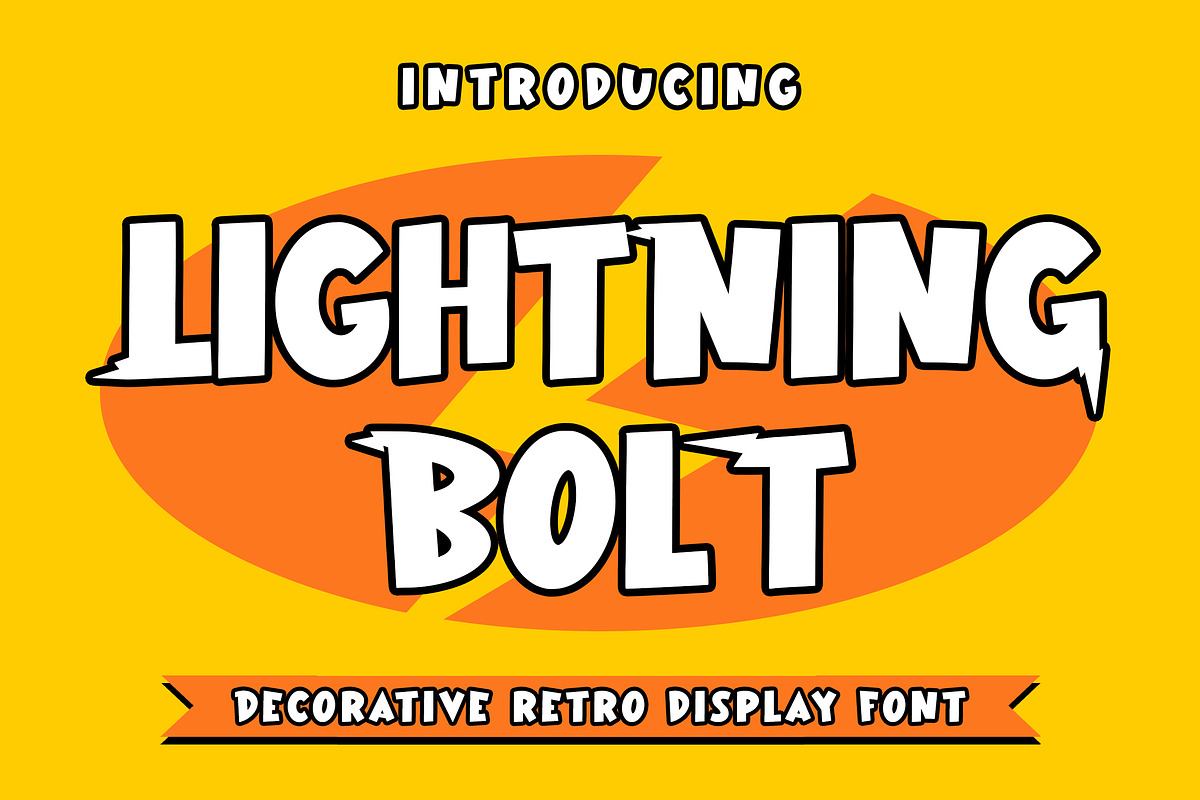
The Lightning Bolt - Decorative Retro Font Free Download is a bold, energetic typeface with a retro aesthetic, perfect for creating vintage-inspired designs. Ideal for logos, posters, event invitations, social media graphics, and more, this font adds a striking, playful touch to any project with its unique, decorative style. Please note, for commercial use, a license must be purchased. You can download it for free for testing purposes.
With its bold curves, sharp angles, and vintage feel, the Lightning Bolt - Decorative Retro Font Free Download is perfect for projects that need a dynamic and eye-catching look. Whether you're designing for retro events, branding, or creative campaigns, this font will give your designs an energetic and nostalgic flair.